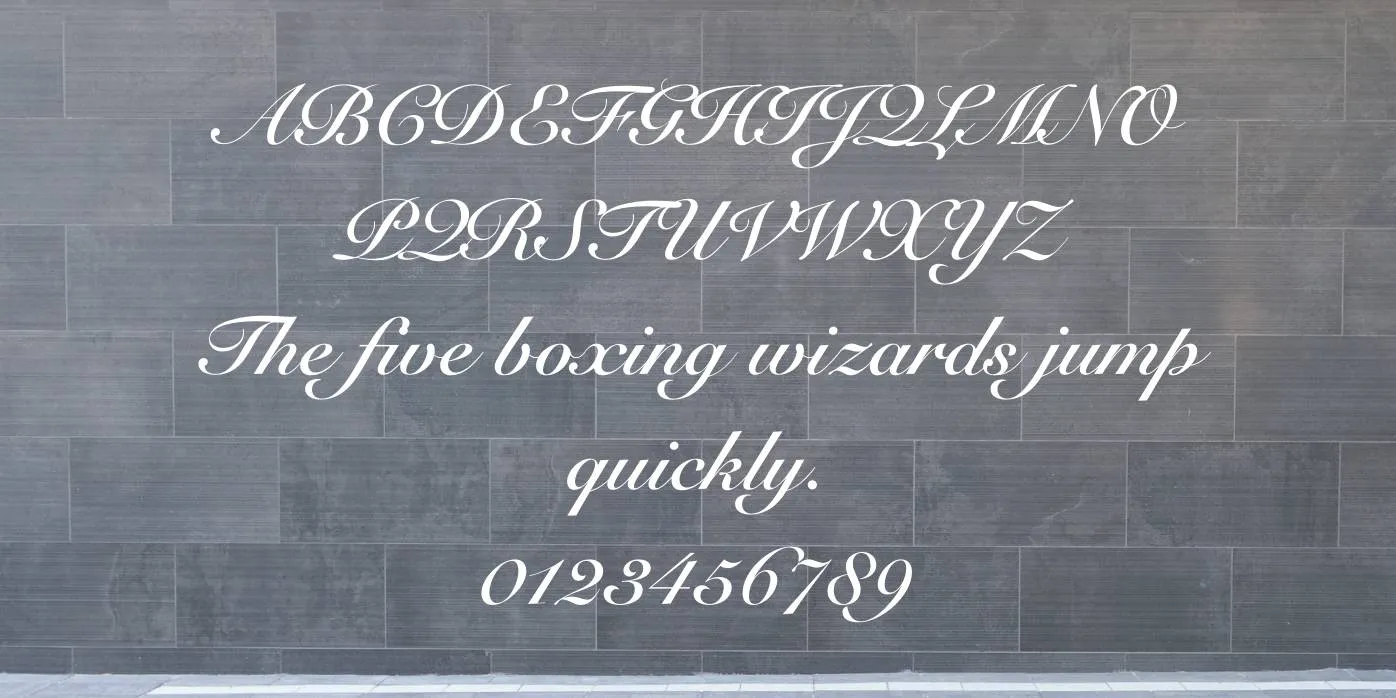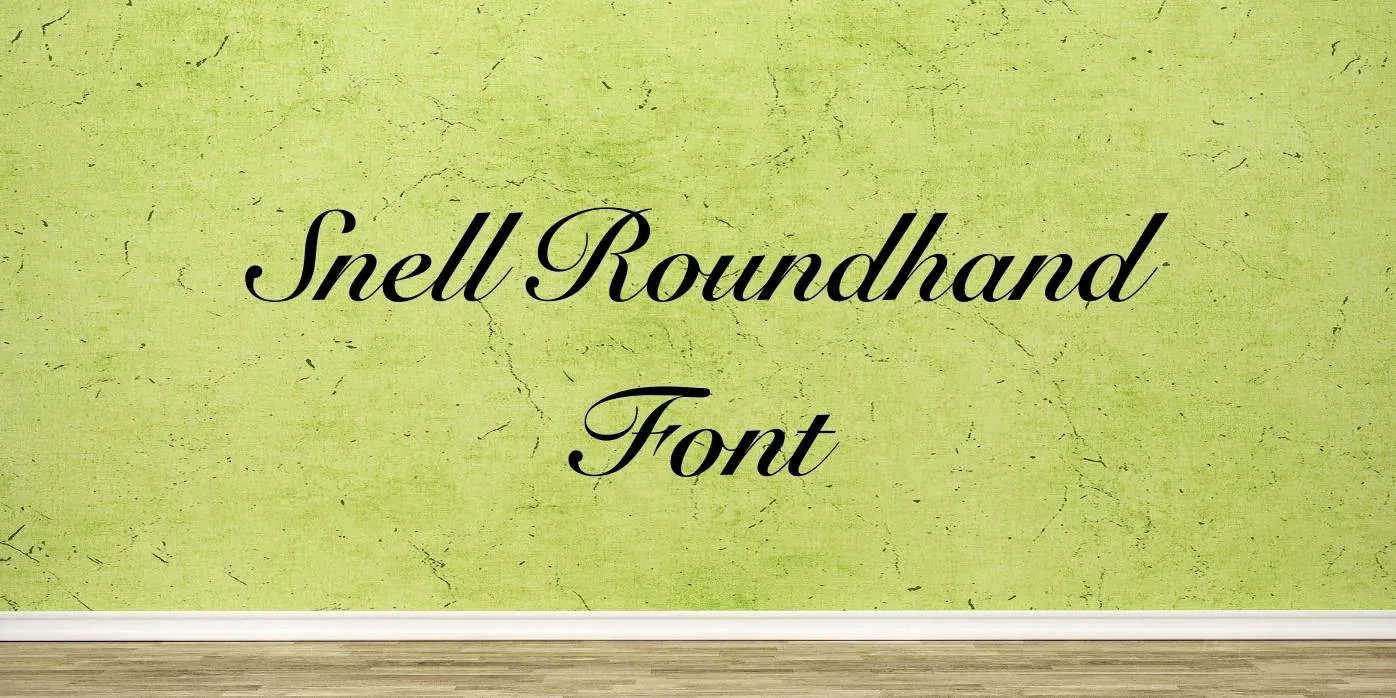
Snell Roundhand Font
Lets we present a stylish and modern font family name Snell Roundhand Font. This typeface belongs to the Script typeface family. In 1966 this classy font was designed by well-known and famous designer  Matthew Carter. This font family comes in two unique weights.
This script font is popular I’m market because of its large X_height and clean texture. It has clean and Bold textures. Features of this font are the same as Tangerine font and Rockwell Font it is best for typographic of photocomposition. This amazing and stunning font family is most suitable for Adobe Photoshop.
The different organizations used this font to make logos and other related graphic designs. Its value is enhanced among graphic designers as time passes. Sacramento Font is one of the most alternatives to the font family and By pairing this font you can make your designs more decorative and valuable.